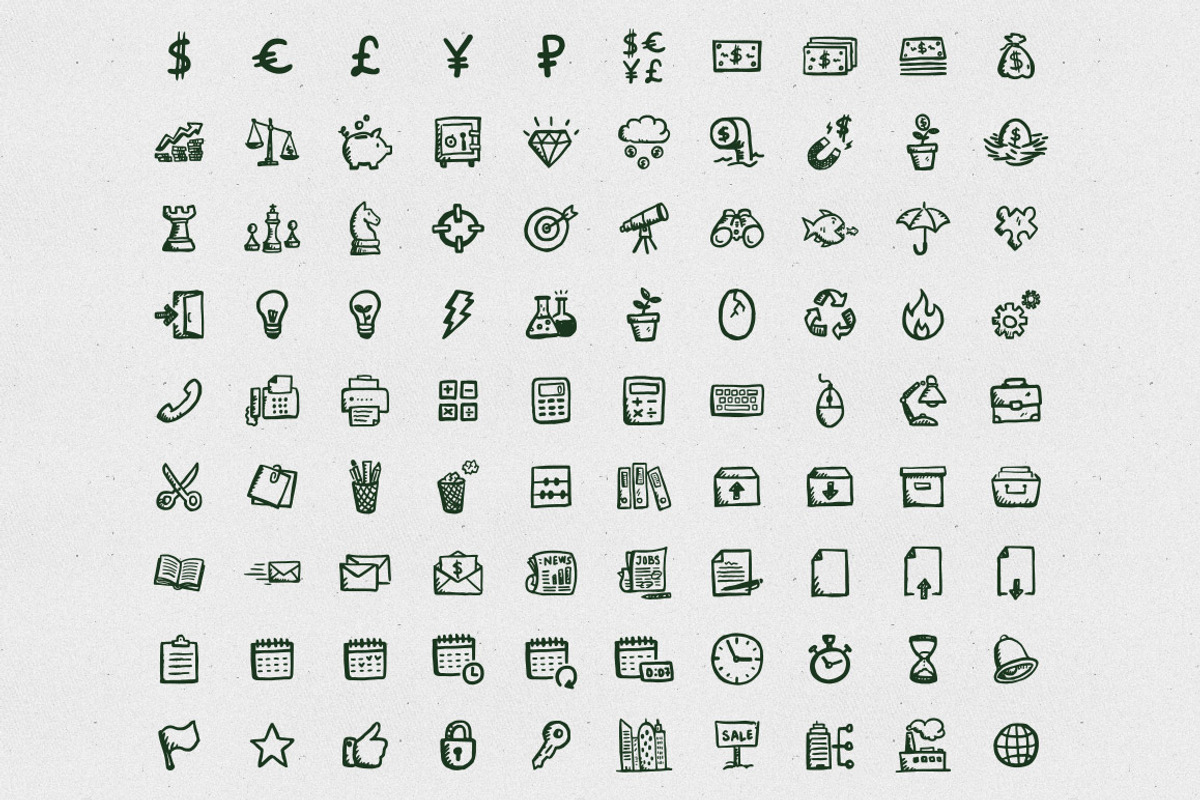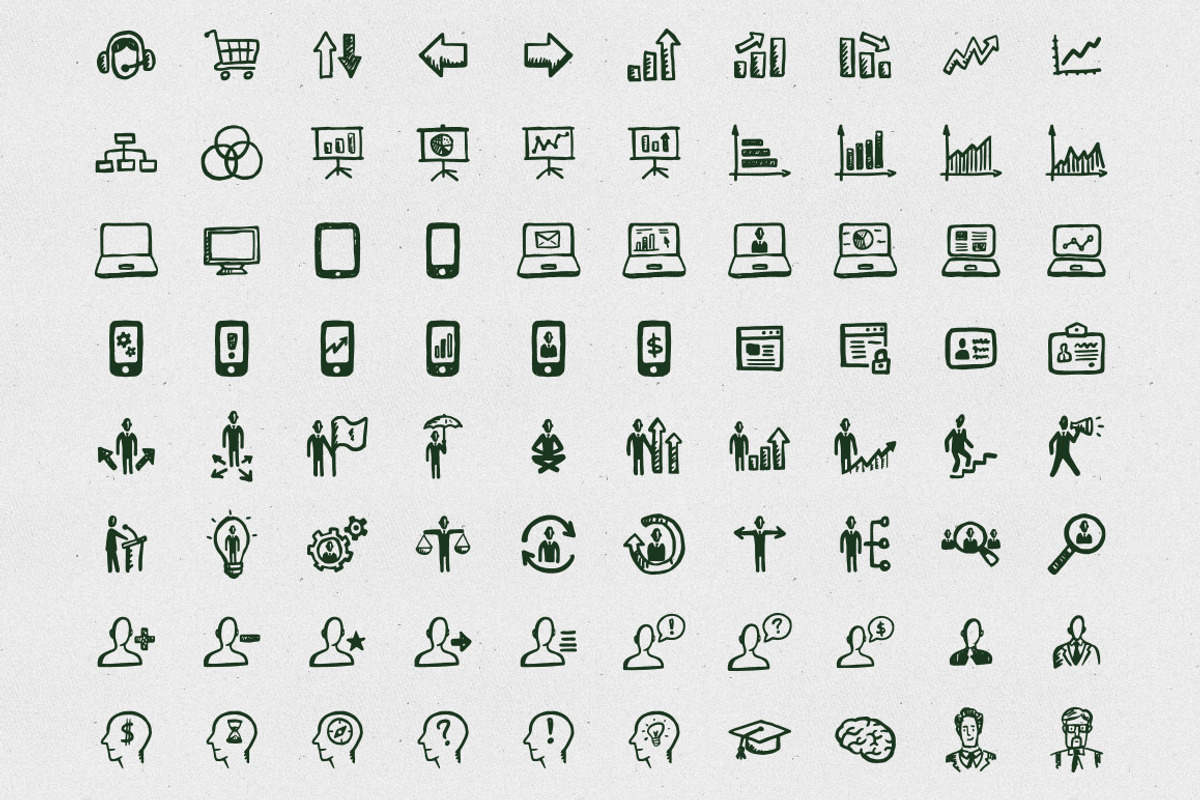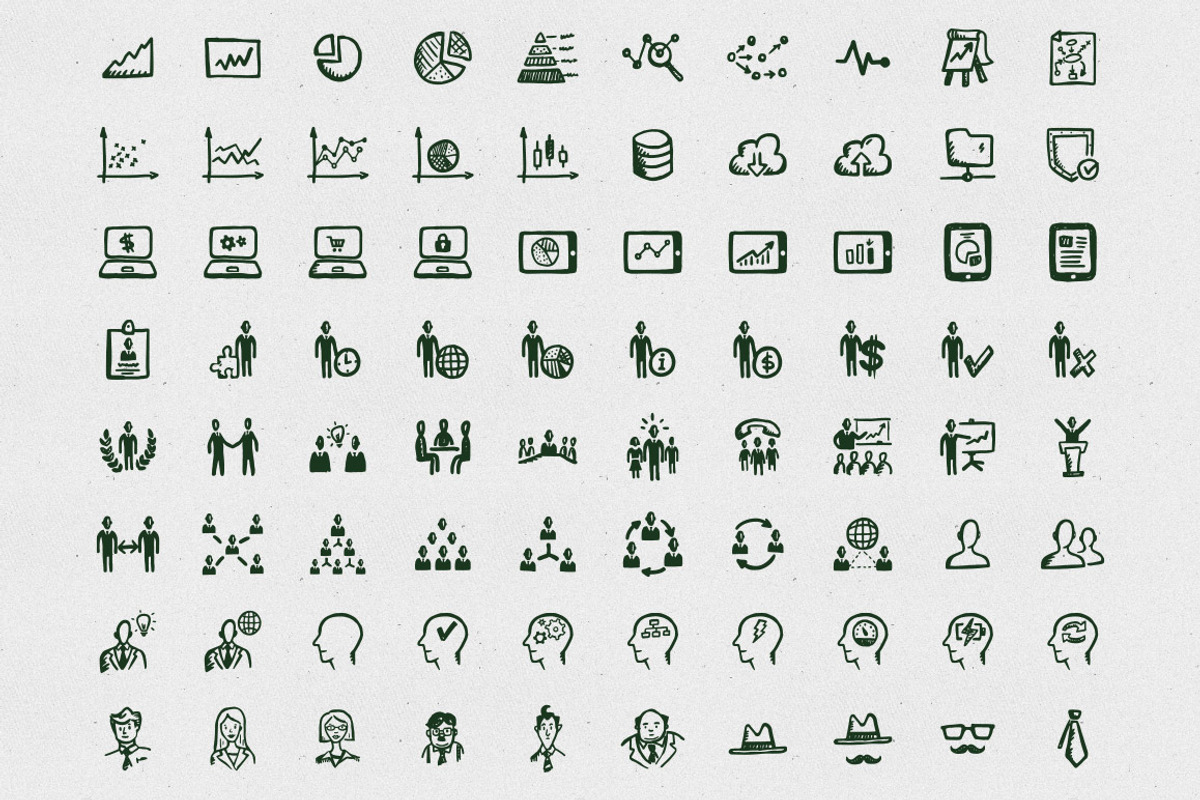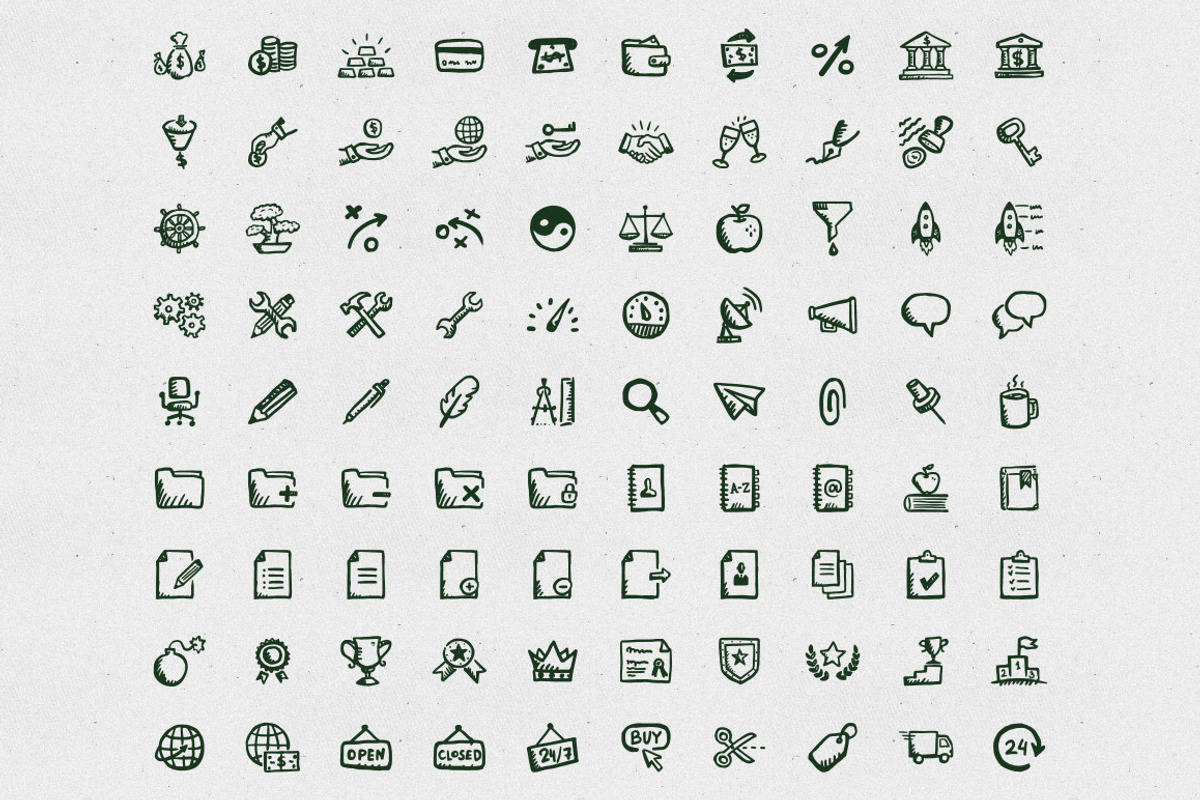
Busy Icons Font
Busy Icons Font by Hand-Drawn Goods is a font selected for branding, posters, packaging, typography.
- Business icons font includes 340 hand-drawn icons featured in the original Busy Icons set by Hand-Drawn Goods.
- For those who would prefer to generate a custom business icon font using only those Busy Icons glyphs that are needed for your project — we
- Business icons font includes 340 hand-drawn icons featured in the original Busy Icons set by Hand-Drawn Goods.
- For those who would prefer to generate a custom business icon font using only those Busy Icons glyphs that are needed for your project — we
- Busy Icons Font includes characters from the following categories: business, management, HR, investments, startups, marketing, time manageme
Why Busy Icons Font is worth a look
Busy Icons Font by Hand-Drawn Goods fits naturally into Branding, posters, packaging, typography.